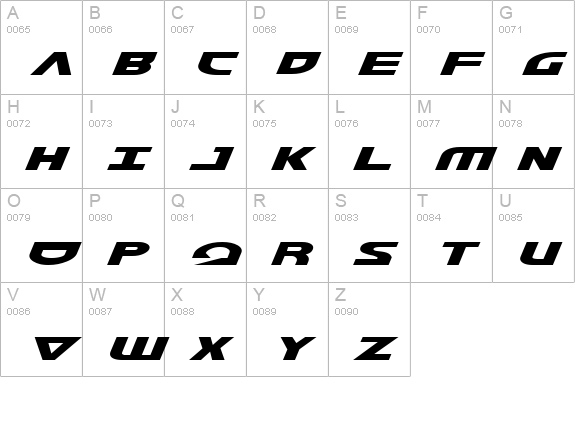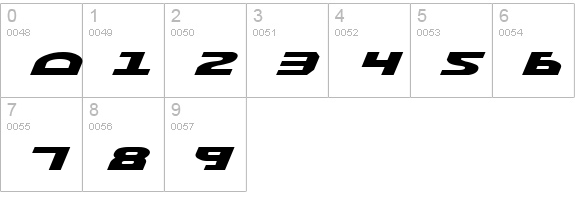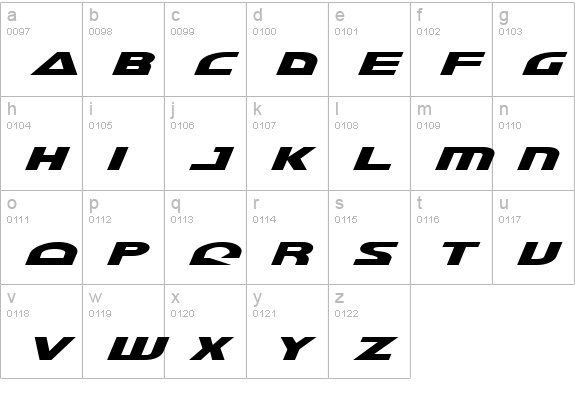
Morse NK Italic is a distinctive, italic variant in the Morse typeface family \xE2\x80\x94 well suited to design and typography projects.
Morse NK Italic font exudes elegance and sophistication with its sleek and modern design. The italicized style adds a touch of flair and sophistication to any project, making it perfect for high-end branding, editorial designs, and more. This font is not only visually appealing but also highly versatile, suitable for a wide range of design applications. Its clean lines and unique letterforms make it stand out from the crowd, adding a touch of elegance to any project. Best of all, Morse NK Italic font is available for free download at FontsMarket.com. This means you can elevate your designs without breaking the bank, making it a valuable addition to any designer's toolkit. Don't miss out on this opportunity to enhance your projects with this stunning font – download Morse NK Italic today and take your designs to the next level!